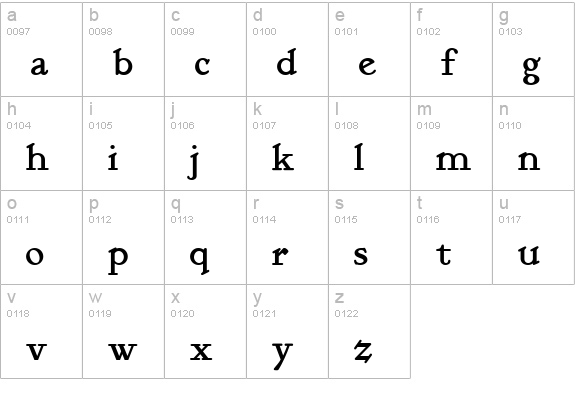
Kelmscott Roman NF Font Details
Kelmscott Roman NF is a timeless and elegant font that exudes sophistication and charm. With its classic serifs and graceful curves, this typeface is perfect for adding a touch of refinement to any project. Whether you're designing a wedding invitation, creating a logo, or crafting a magazine layout, Kelmscott Roman NF will elevate your design to the next level. The best part? Kelmscott Roman NF is completely free to download at FontsMarket.com. This means you can access this exquisite font without any cost, making it a fantastic choice for both personal and commercial projects. Don't miss out on the opportunity to enhance your designs with the beauty of Kelmscott Roman NF – download it today and see the difference it can make!